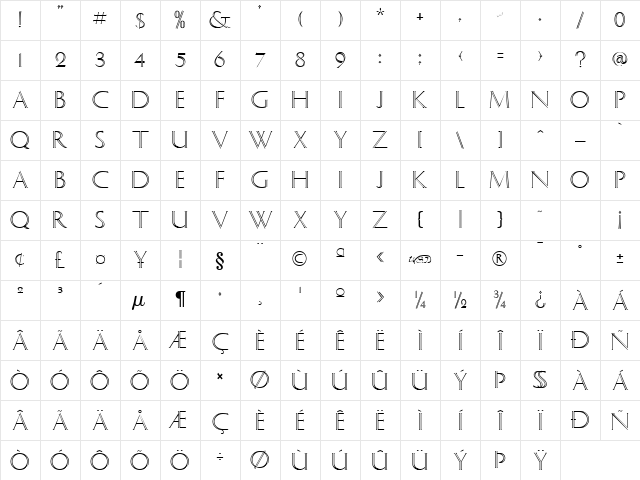
Socrates Regular
Socrates Family
Design Context for Socrates
Socrates is a composed and adaptable typeface that performs quietly and consistently across a wide range of design contexts.